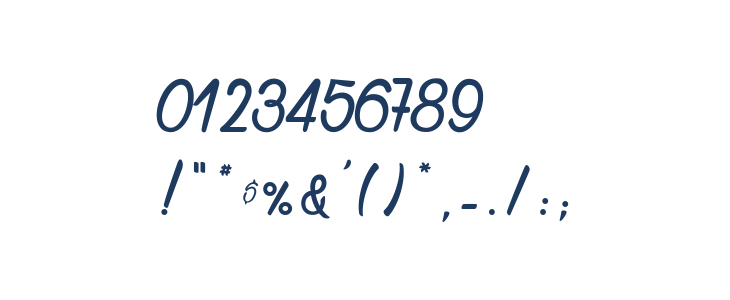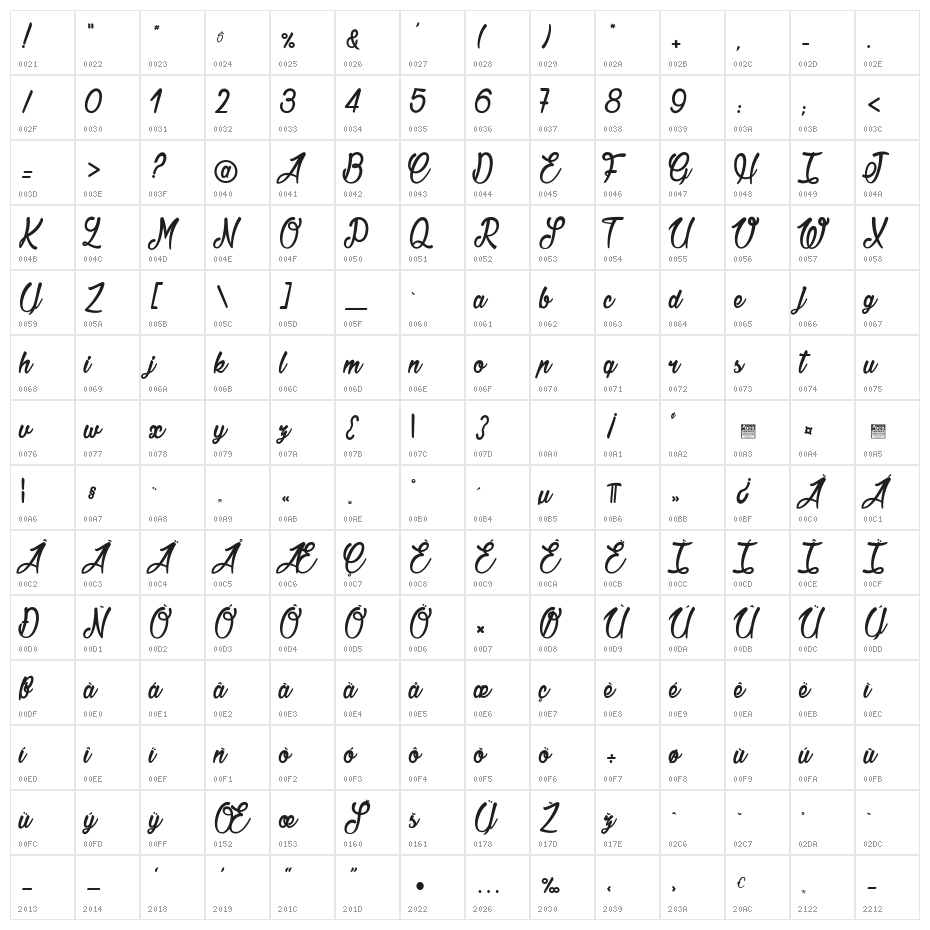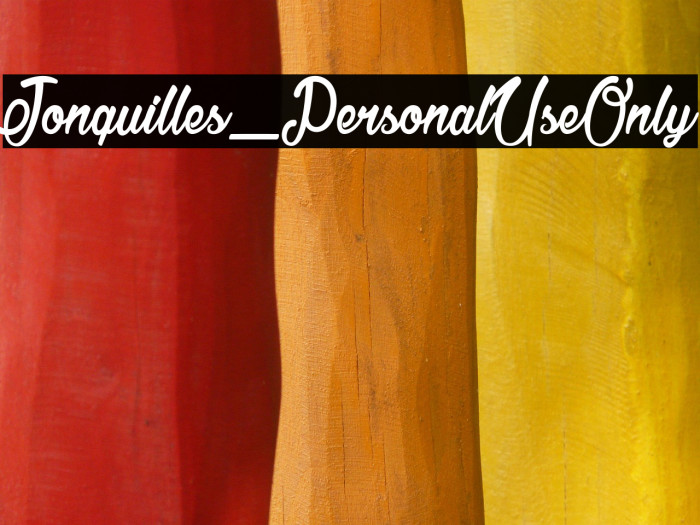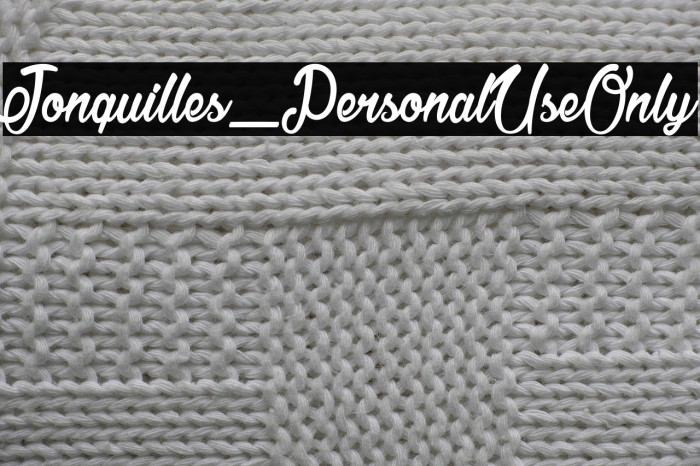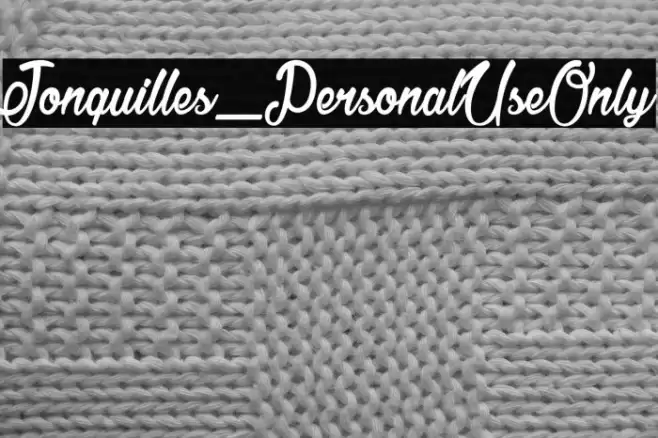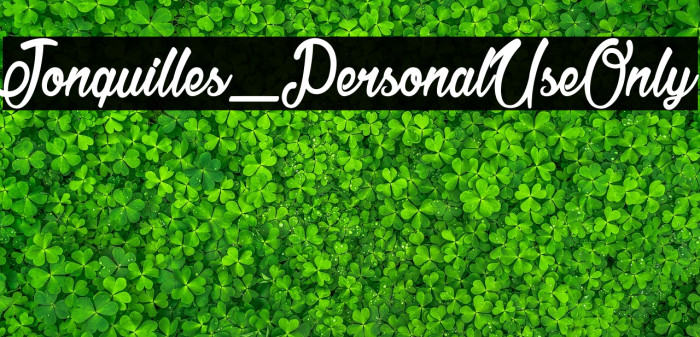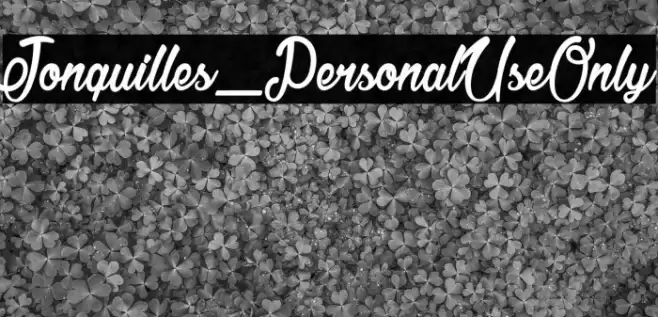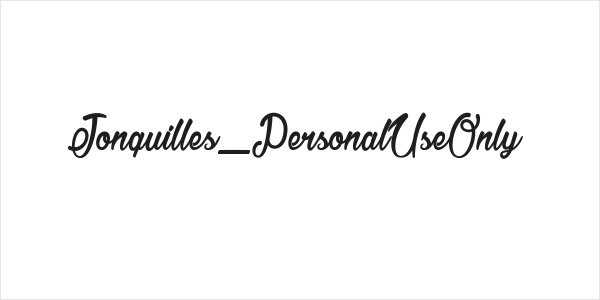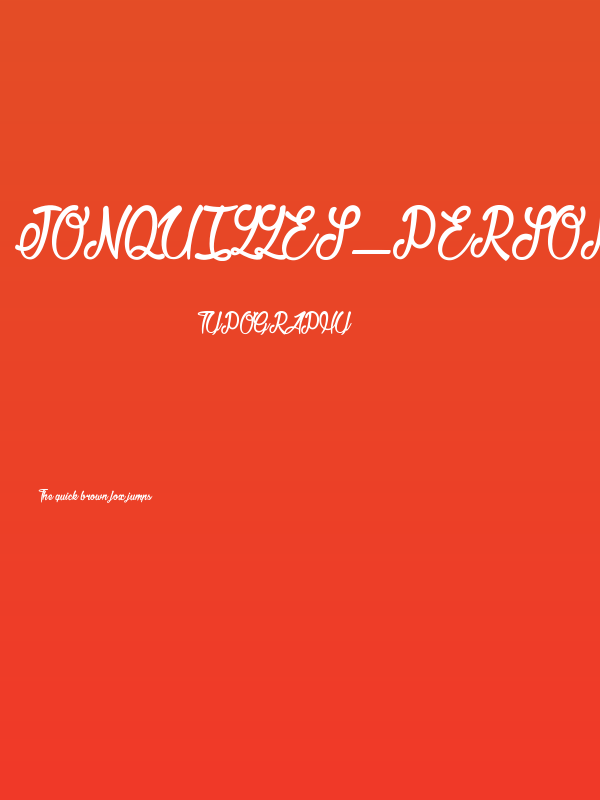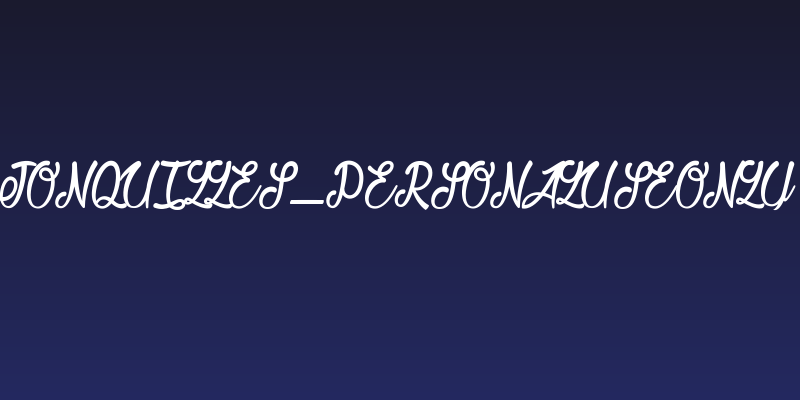
Jonquilles_PersonalUseOnly Font
Jonquilles_PersonalUseOnly Description
This font features a flowing, cursive style with elegant loops and swirls, giving it a handwritten appearance. The uppercase letters are particularly ornate, with exaggerated curves and flourishes that add a touch of sophistication. The lowercase letters maintain a consistent flow, enhancing readability while retaining the decorative nature. Numbers and special characters are designed to match the overall aesthetic, ensuring a cohesive look across all text elements. The font's playful yet refined style makes it suitable for creative projects that require a personal touch.